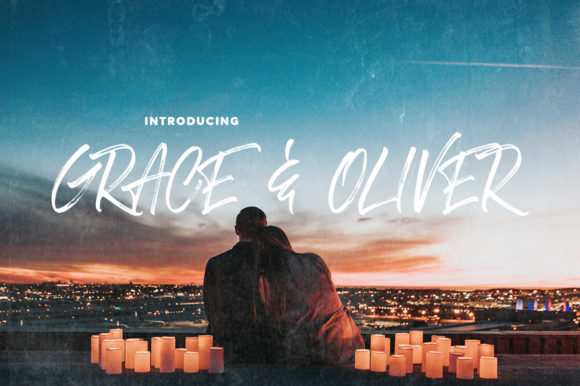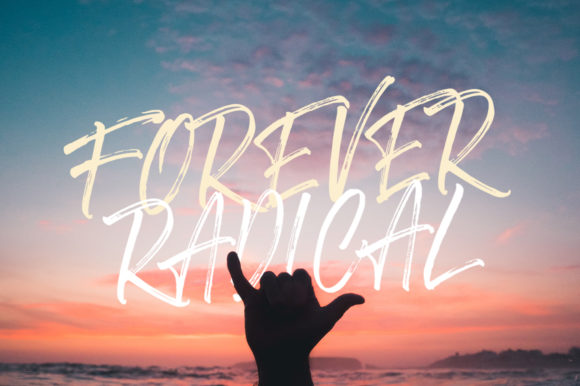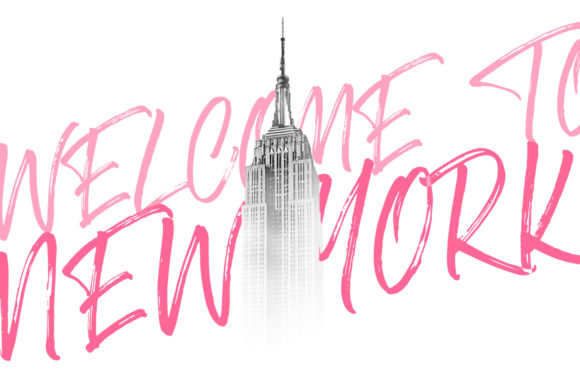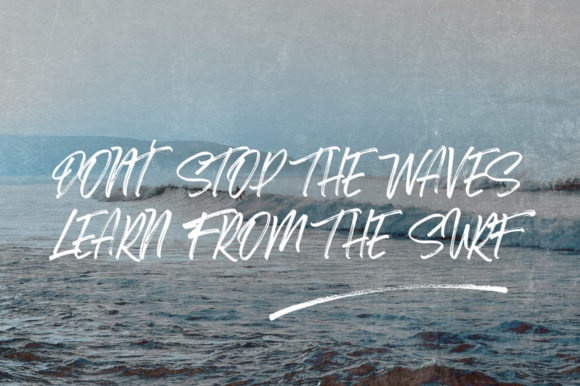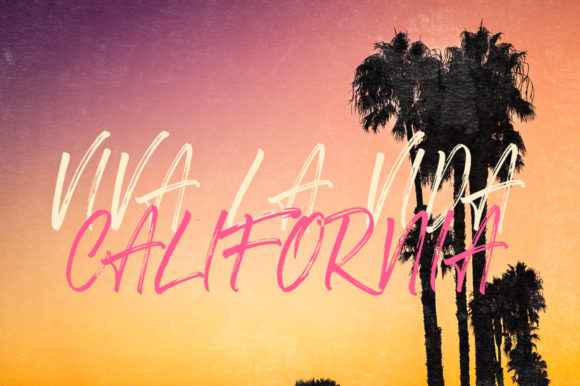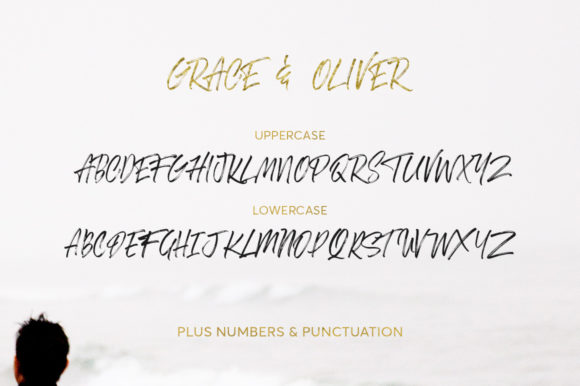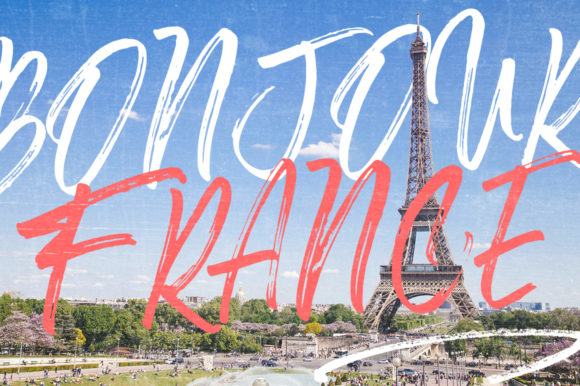
Grace & Oliver Font
About Grace & Oliver Font
Grace & Oliver is a rough, loud and proud handwritten font with a unique style. Use it to turn any design project into a true standout!